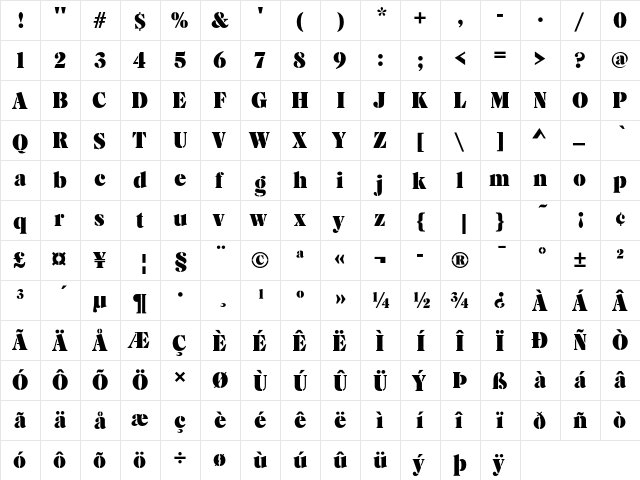
Caslon D OT Stencil
Design Context for Caslon D OT Typeface
Caslon D OT has the rough pragmatism of spray-painted stencil signage, adding a raw, street-level authenticity to designs.
Ideal for industrial branding, streetwear, military-adjacent aesthetics, and urban signage projects.
Pro Tip: Pair Caslon D OT with raw, utilitarian design elements — exposed concrete textures, flat colour, and minimal ornamentation suit it well.